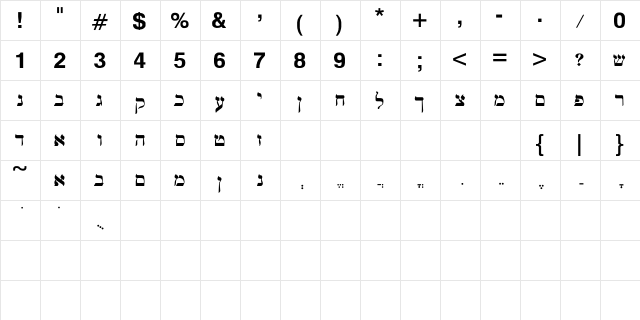
Mendel Siddur Bold
Design Context for Mendel Siddur Typeface
Mendel Siddur takes a measured approach to typography — its balanced proportions and neutral character make it a reliable workhorse for both digital and print work. Its bold stroke weight gives it real presence on the page.